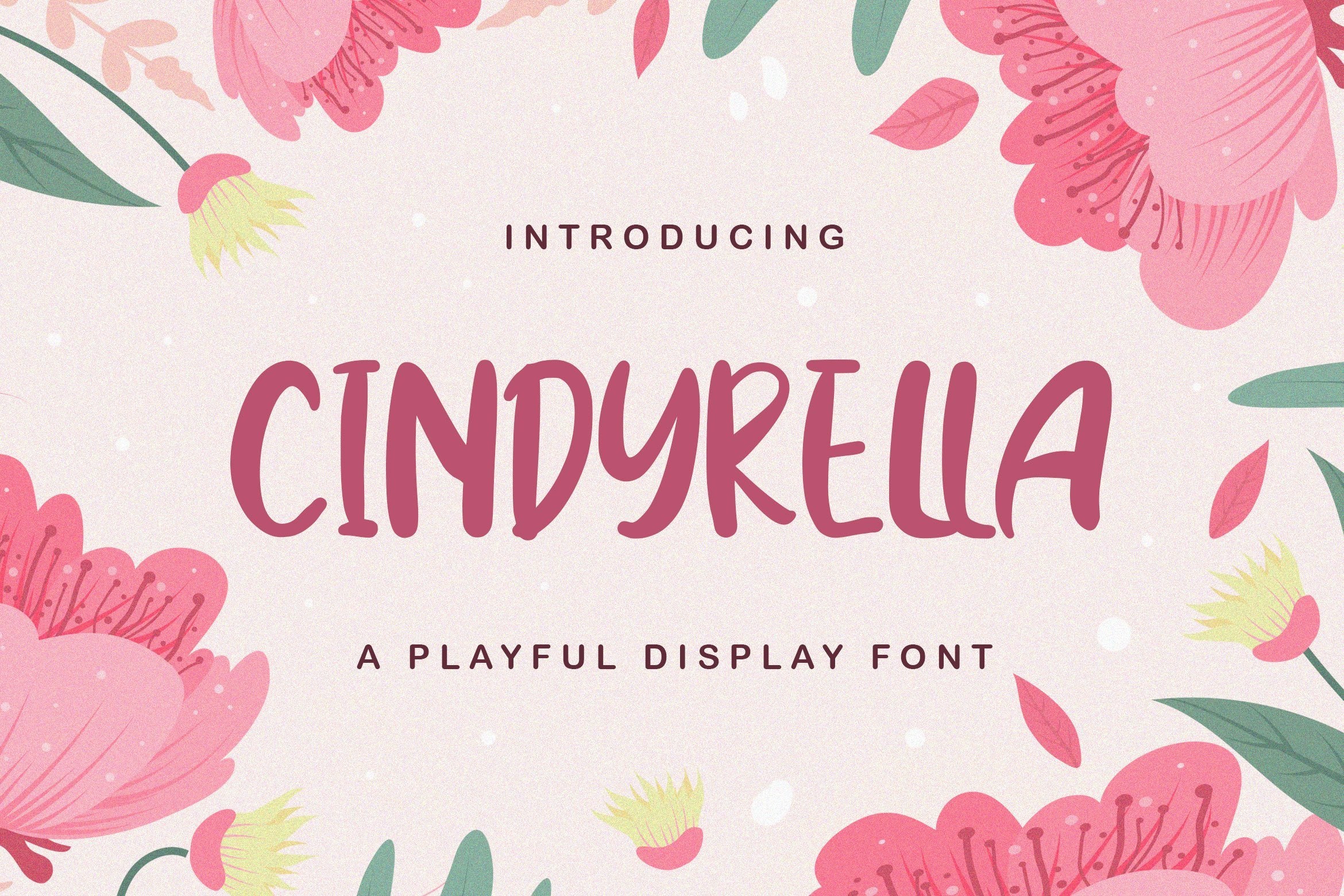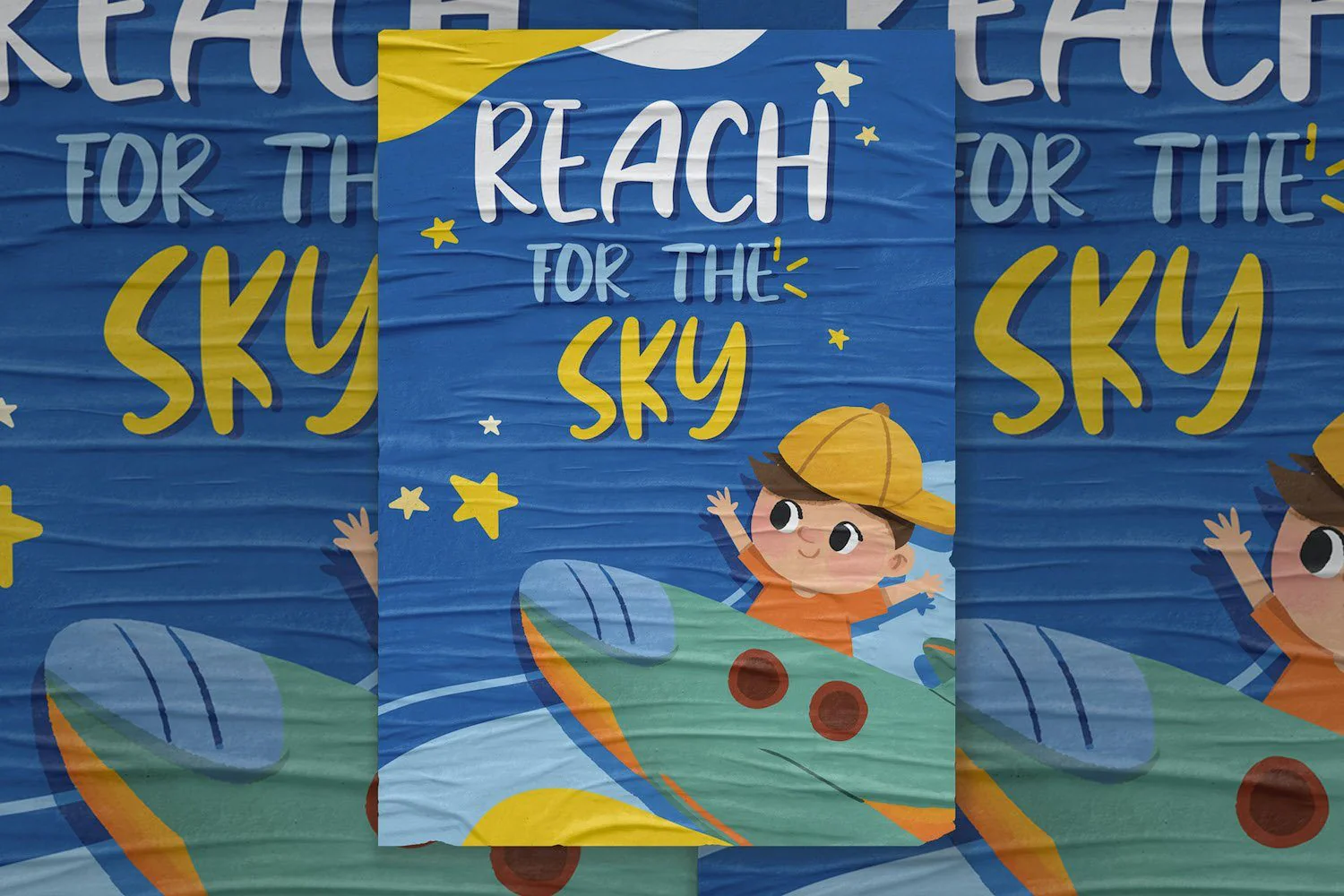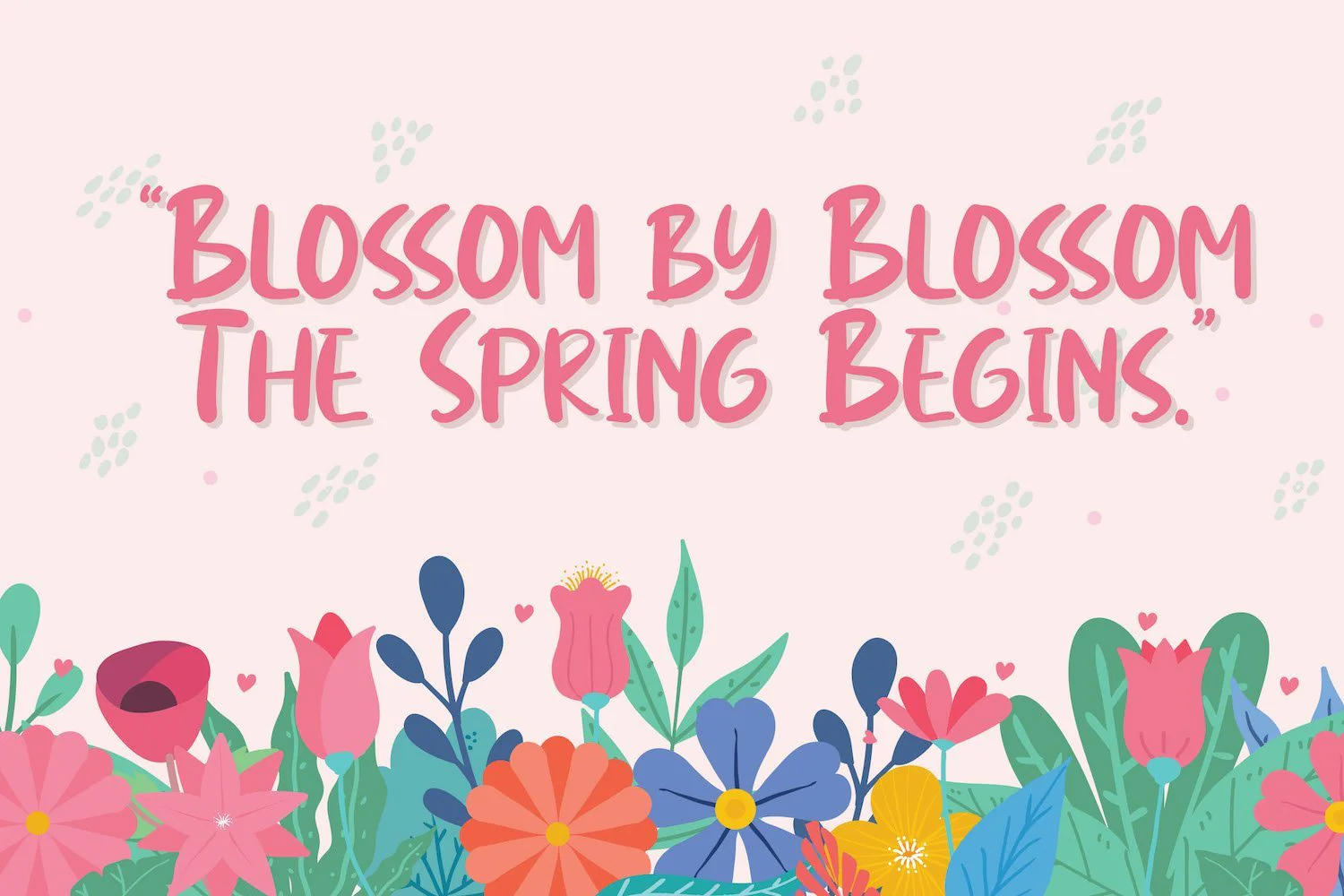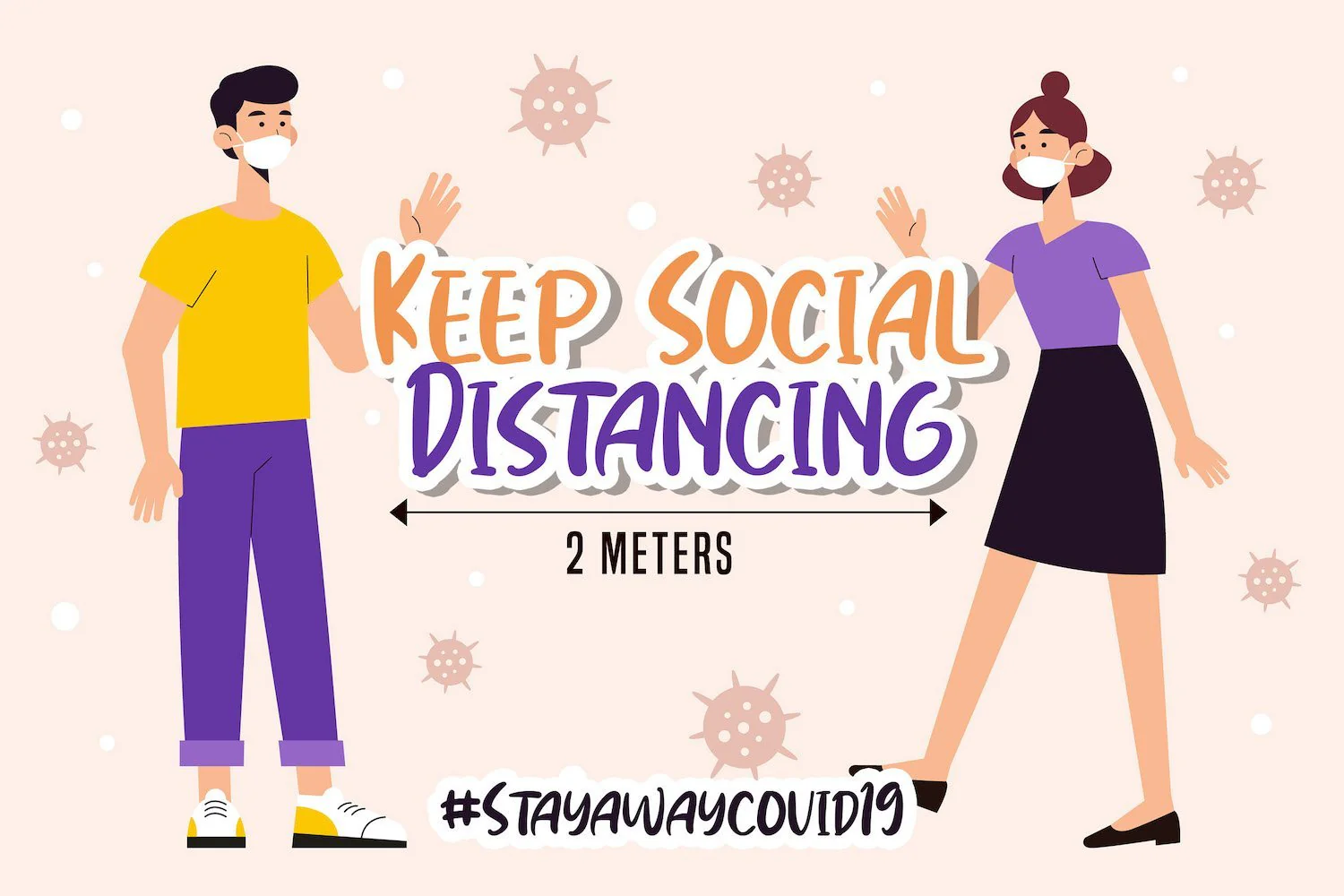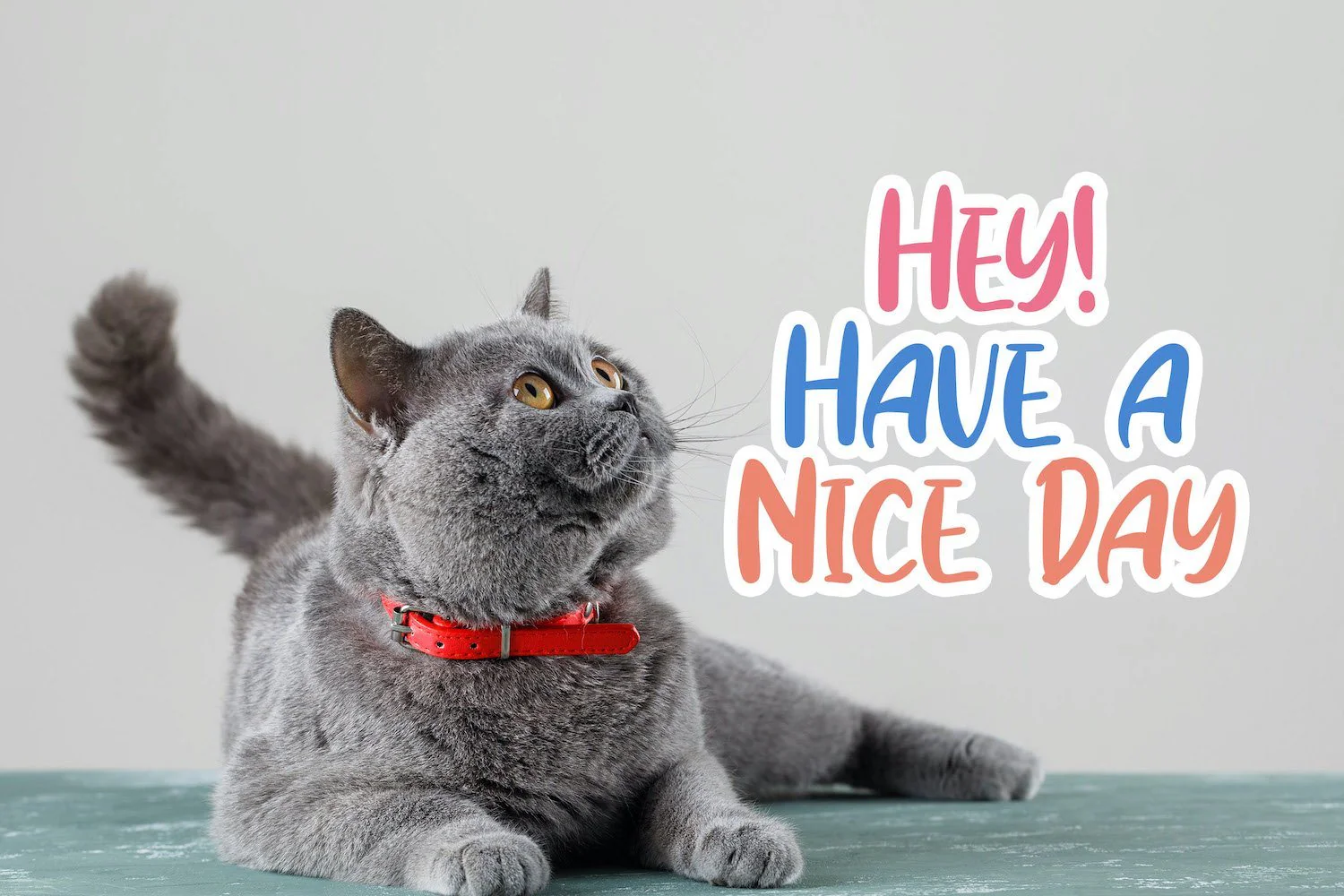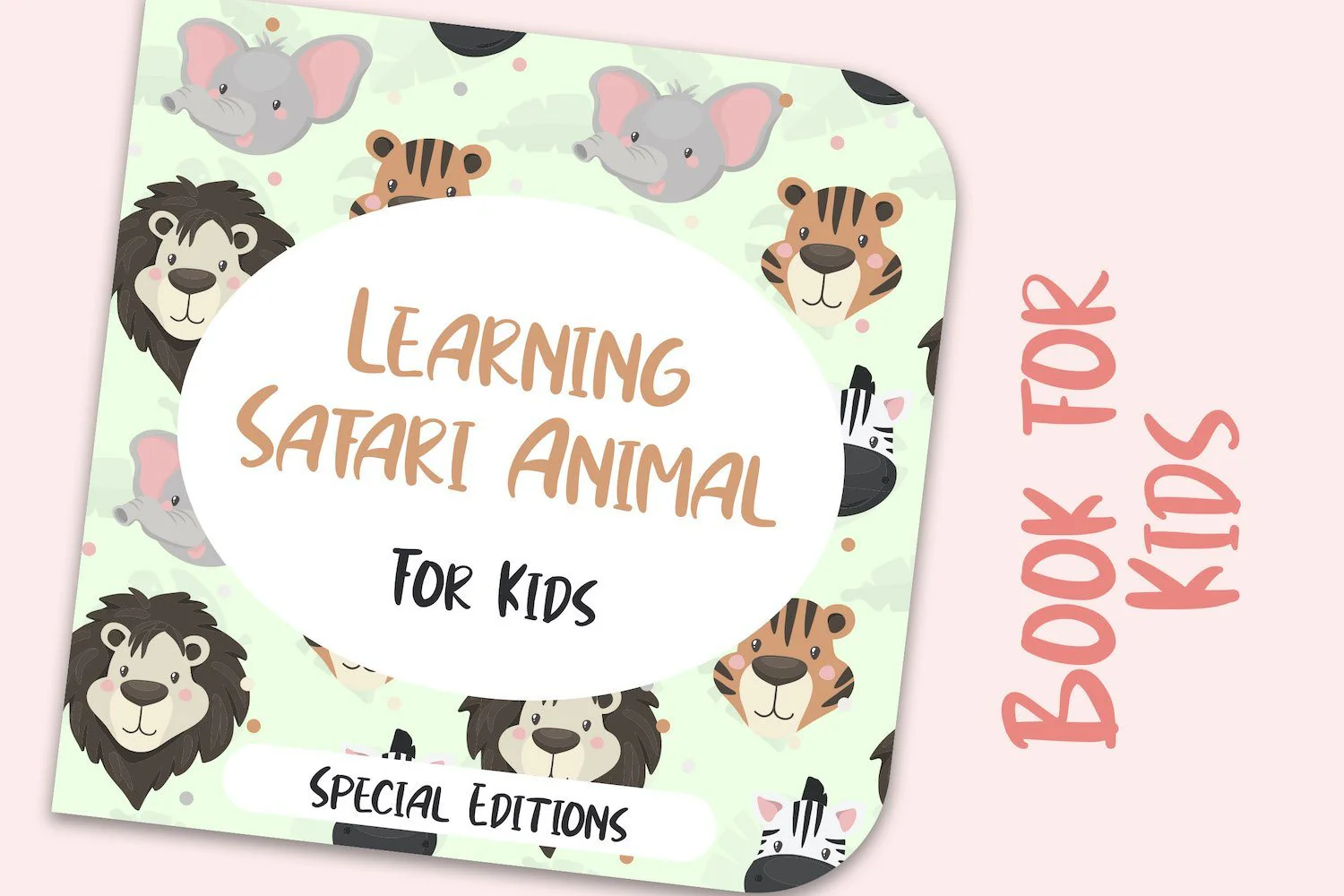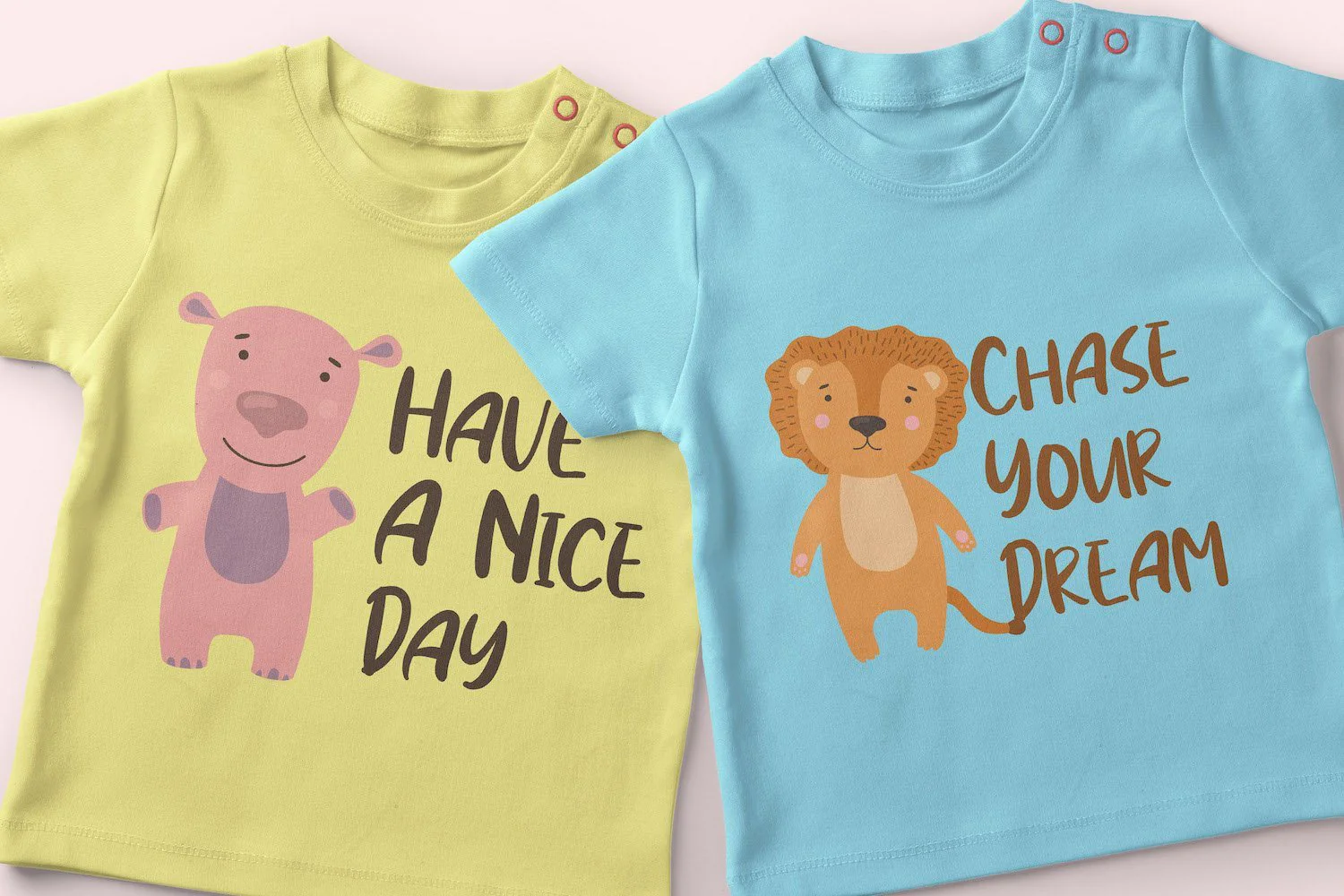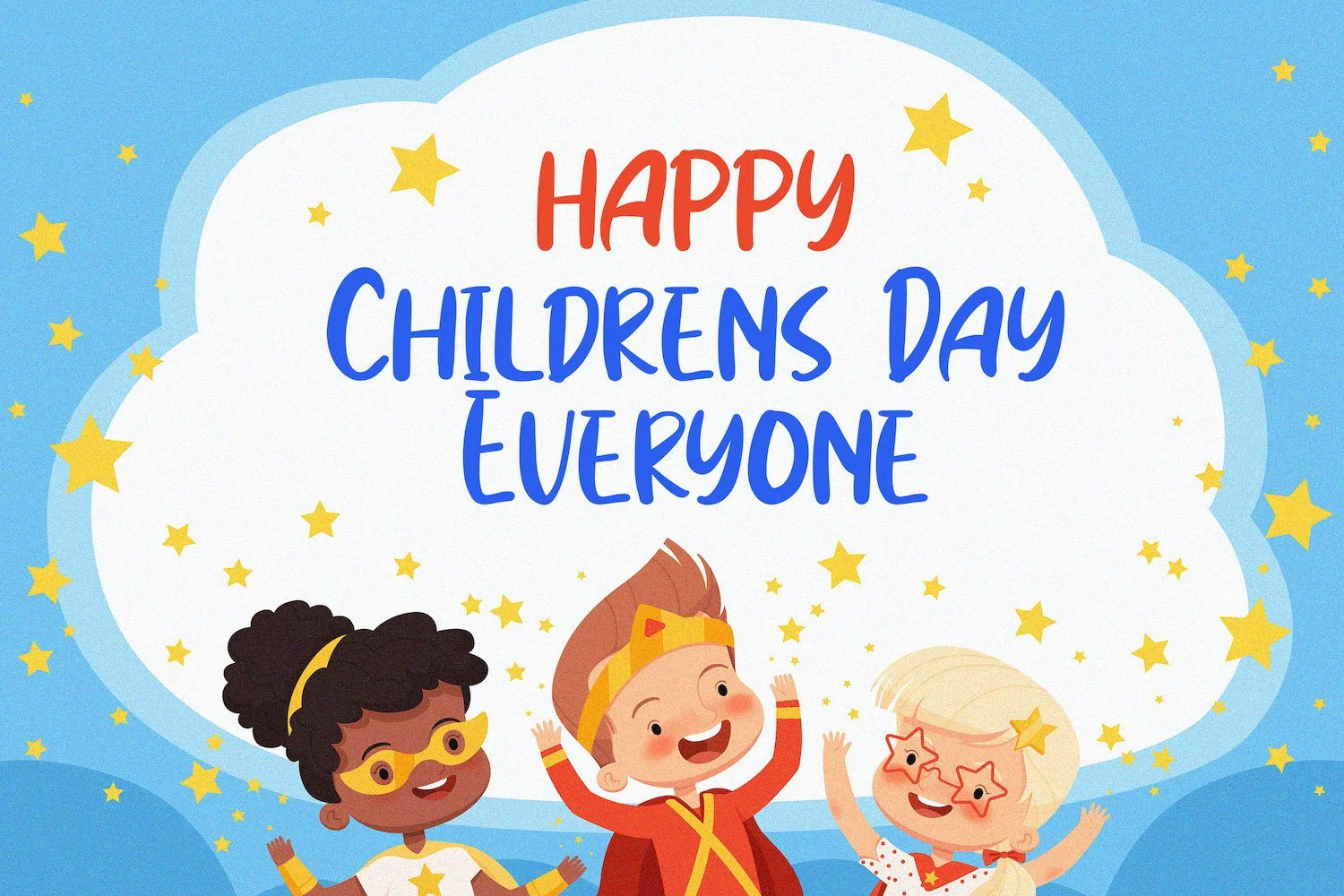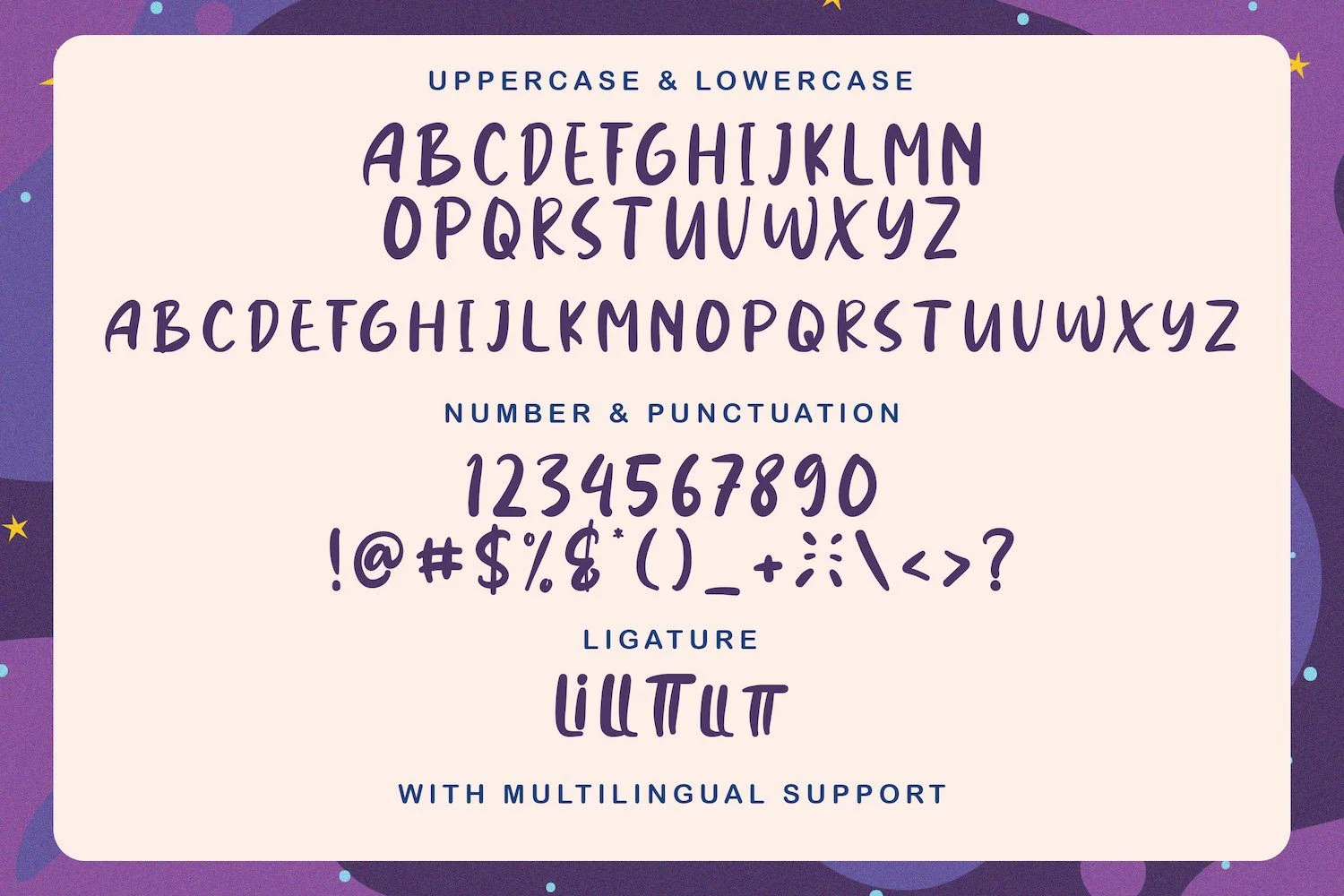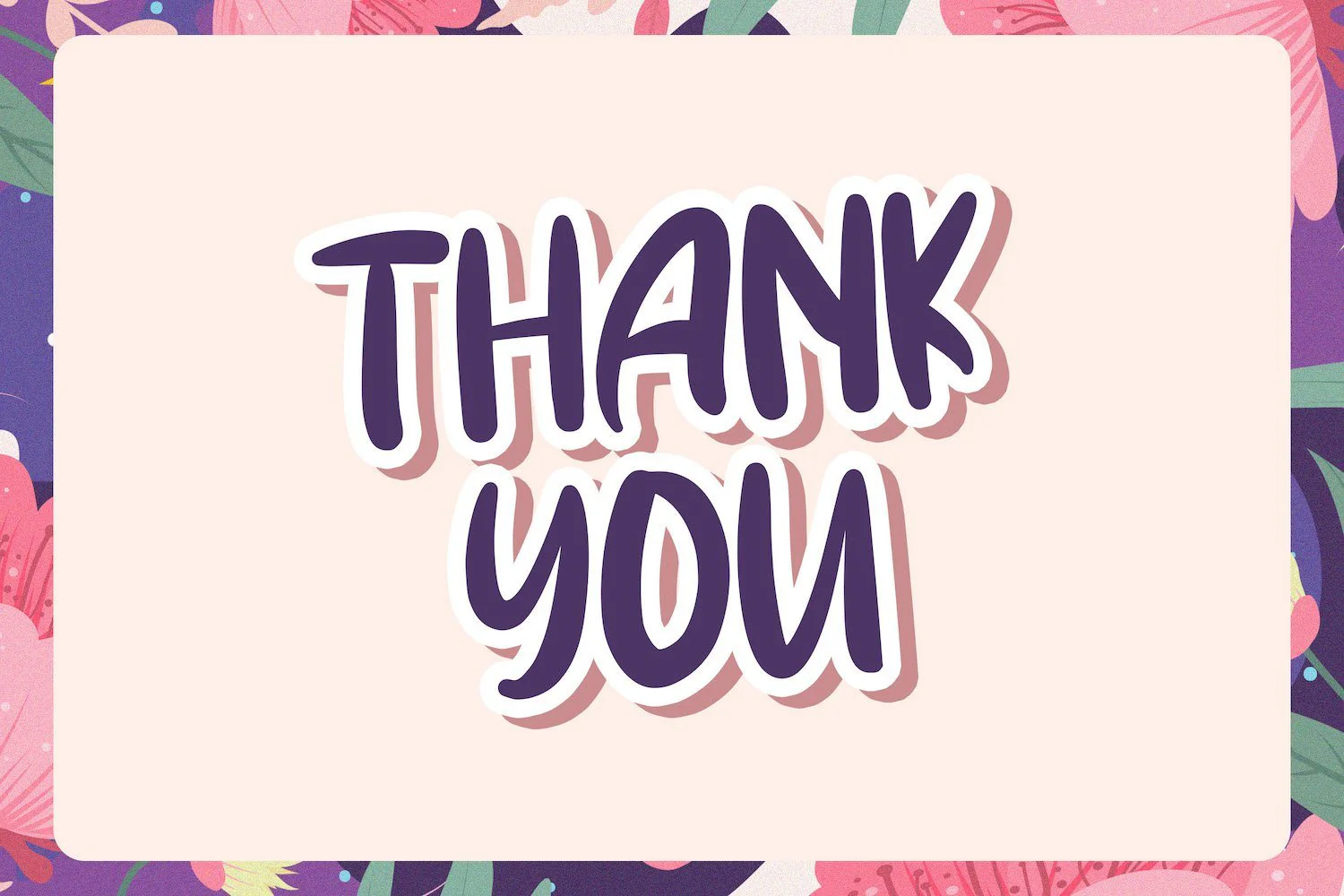
Cindyrella - Playful Display Font
Introducing Cindyrella - Playful Display Font
Cindyrella is a fun and chunky lettered display font. Playful and fresh, this font will be a hit for each of your children or school projects!